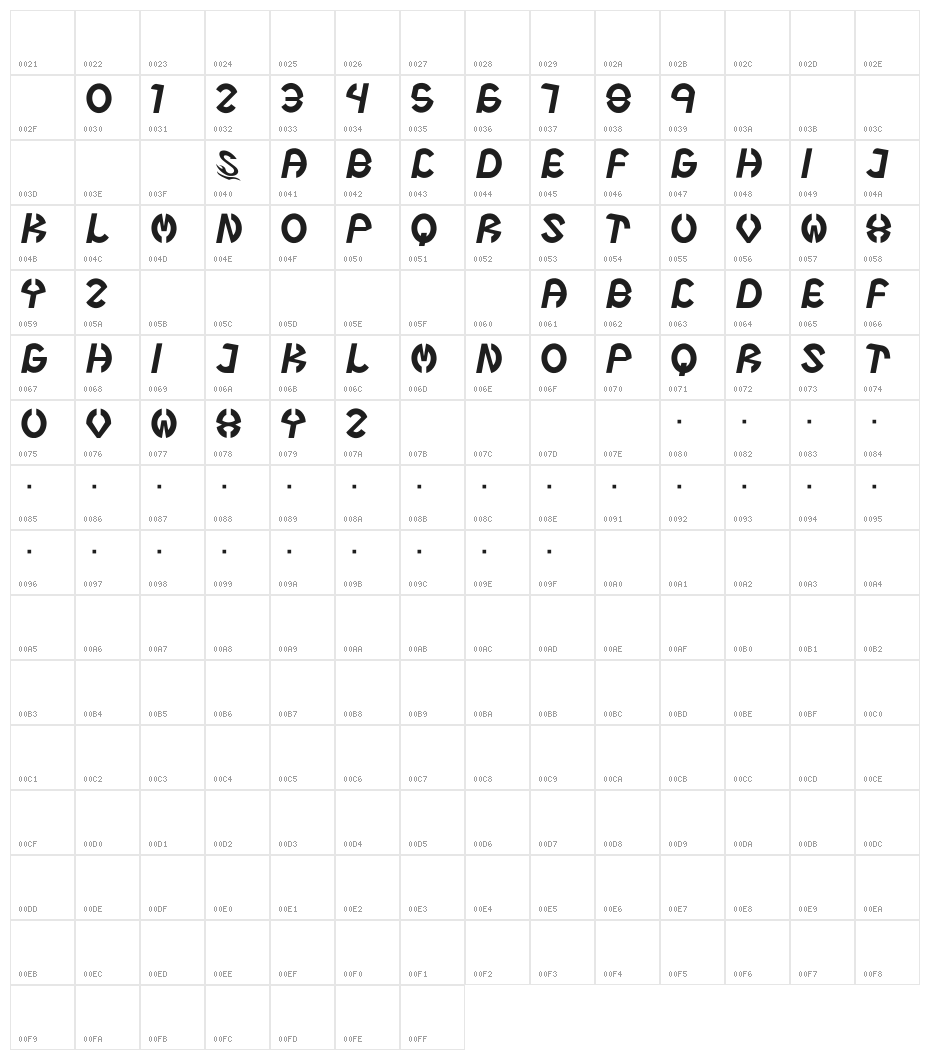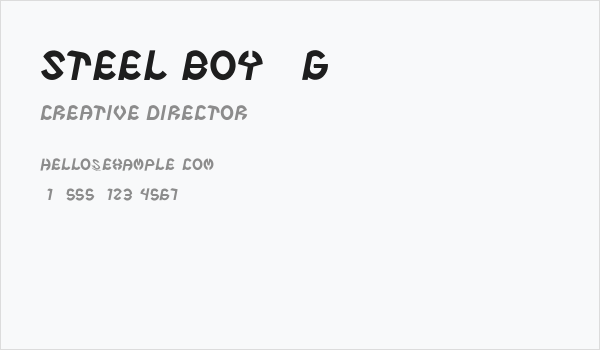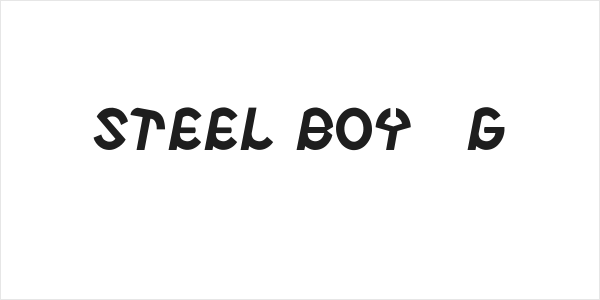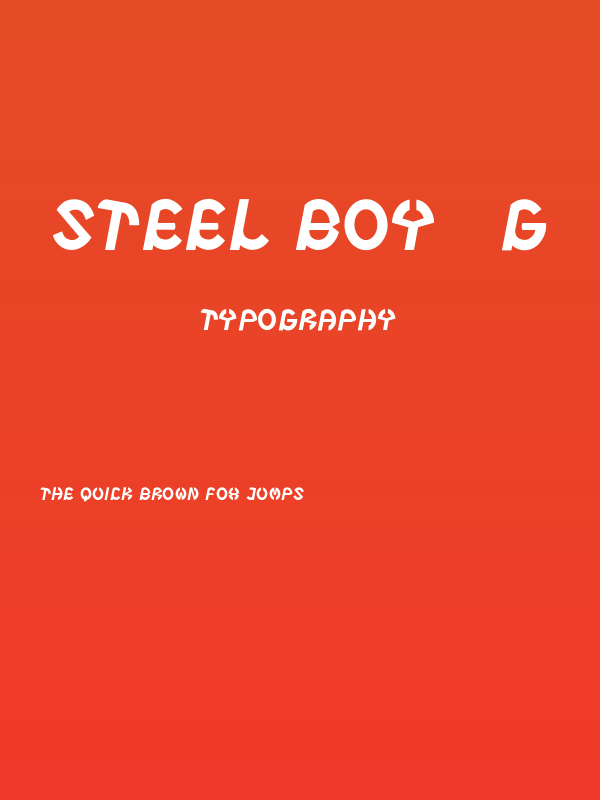
Steel Boy__G Font
Steel Boy__G Description
This font features a bold and futuristic design with a distinct geometric style. The characters are crafted with sharp angles and a unique cut-out effect that gives them a mechanical and industrial feel. The uppercase letters are particularly striking, with a consistent use of angular lines and symmetrical shapes that create a sense of movement and energy. The lowercase letters maintain this style, offering a cohesive look across the font. Numbers and special characters are designed to match, ensuring uniformity. This font's bold presence makes it ideal for attention-grabbing designs.
| Proposed Projects | Ideal for sci-fi themed projects, technology branding, video game titles, and posters. |